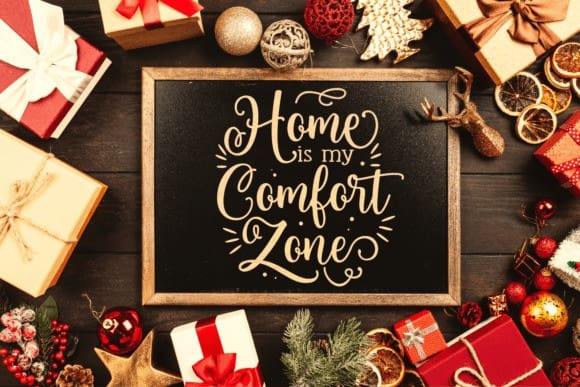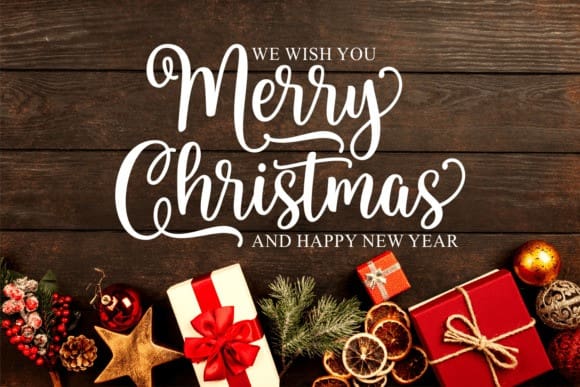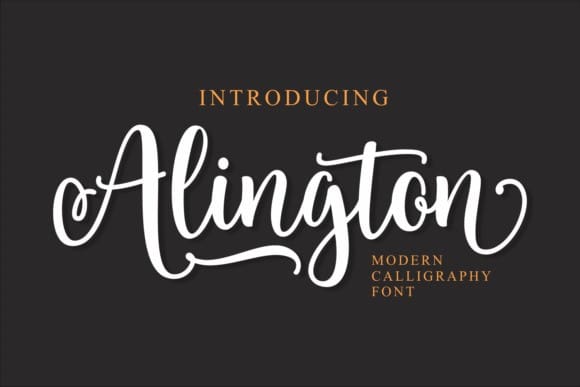
Alington Script Font
Alington Script Font, is a modern and sweet calligraphy typeface with characters dancing along the baseline. It looks so beautiful on invitations like greeting cards, branding materials, business cards, quotes, posters, and more. It will make your designs stand out!